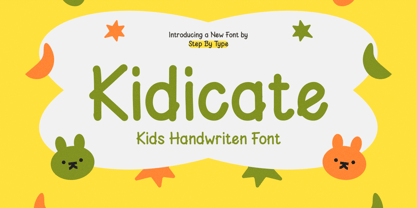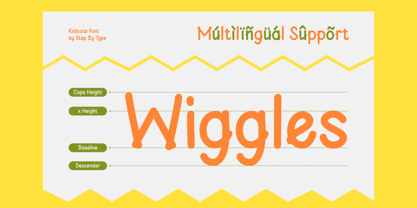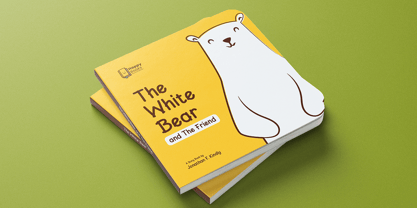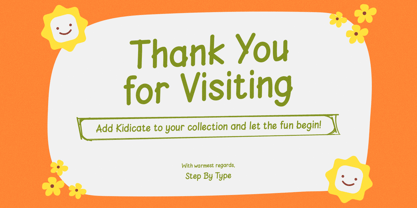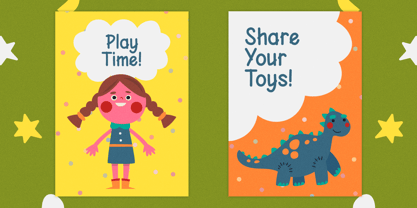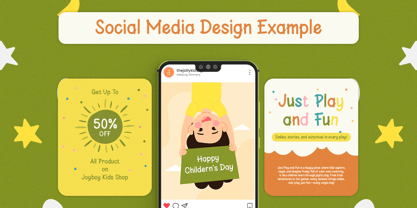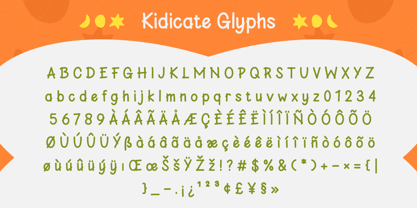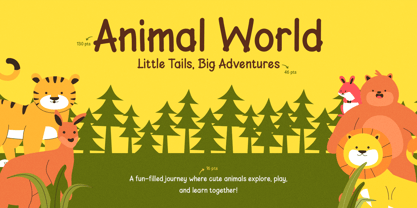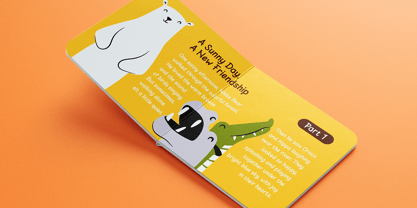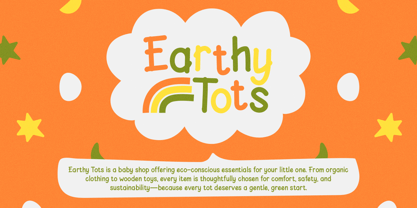
Kidicate
La familia tipográfica Kidicate fue diseñada por Asya Fatkhul Illah y publicada por Steptype. Kidicate contiene 1 estilos. Más información sobre esta familia
Kidicate is a cheerful kids' handwritten font that brings warmth, fun, and personality to any playful project. With its rounded, friendly letterforms and natural hand-drawn bounce, Kidicate feels like a child's own handwriting — perfect for storybooks, children's branding, and anything made to make kids smile.
Easy to read and full of charm, Kidicate works beautifully across both headlines and body text, so it's just as at home on a book cover as it is inside the story. Use it for children's books, nursery and kids' brands, educational materials, packaging, birthday and party design, and cheerful social media.
Great for: children's books and storybooks, kids' branding and logos, nursery and preschool design, educational materials, playful packaging, greeting cards, birthday and party invitations, posters, and social media.